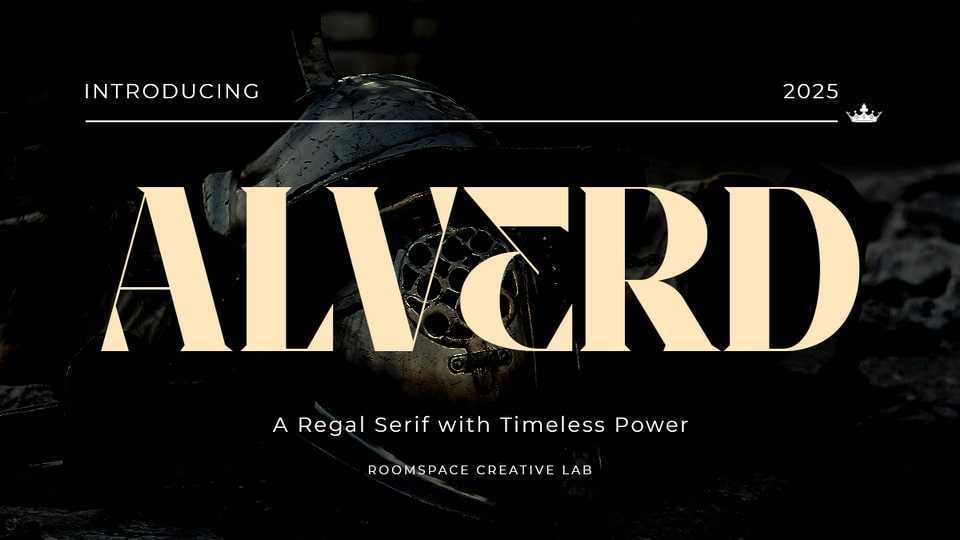
Download Alverd font, a regal serif typeface designed to command attention and elevate your designs with timeless elegance, inspired by the strength and sophistication of classical lettering.